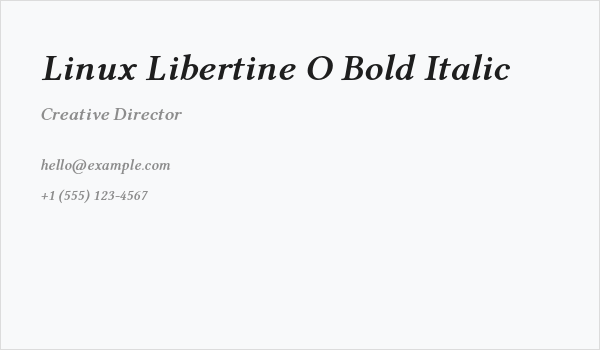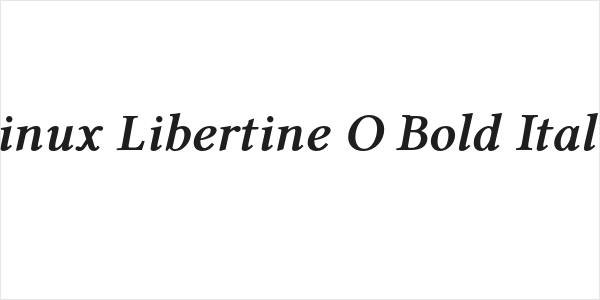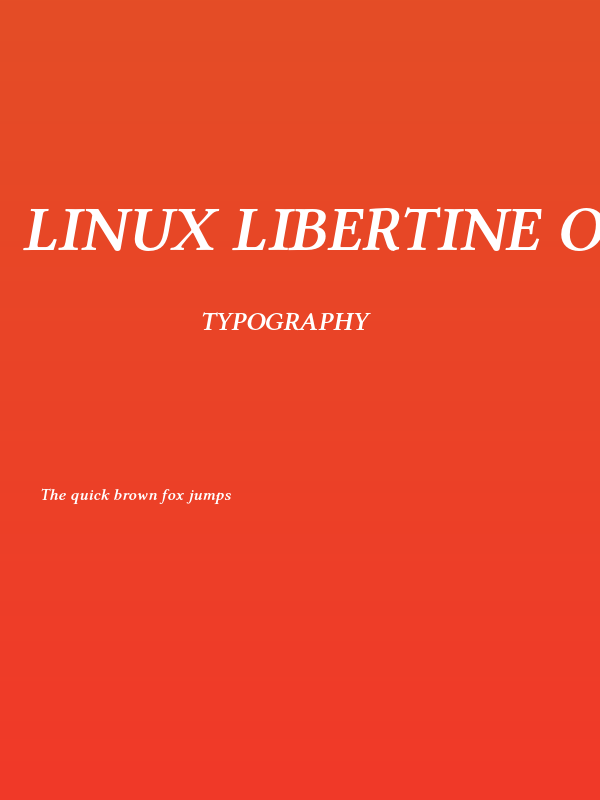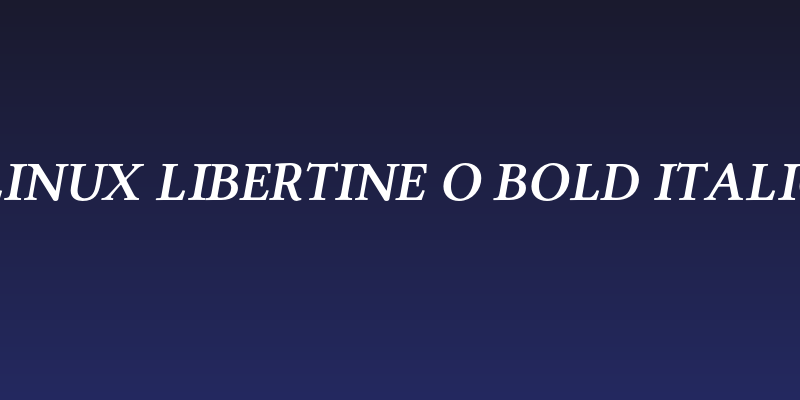
Linux Libertine O Bold Italic Font
Linux Libertine O Bold Italic Description
This font exhibits a classic serif style with elegant curves and a sophisticated italic slant. The bold weight adds a strong presence, making it suitable for impactful text. The serifs are pronounced, enhancing readability and providing a traditional feel. The italicization adds a dynamic and flowing character to the text, ideal for emphasizing certain words or phrases. The numerals are clear and well-defined, maintaining consistency with the overall style. Special characters are distinct and harmonize well with the alphabetic characters, ensuring versatility in various applications.